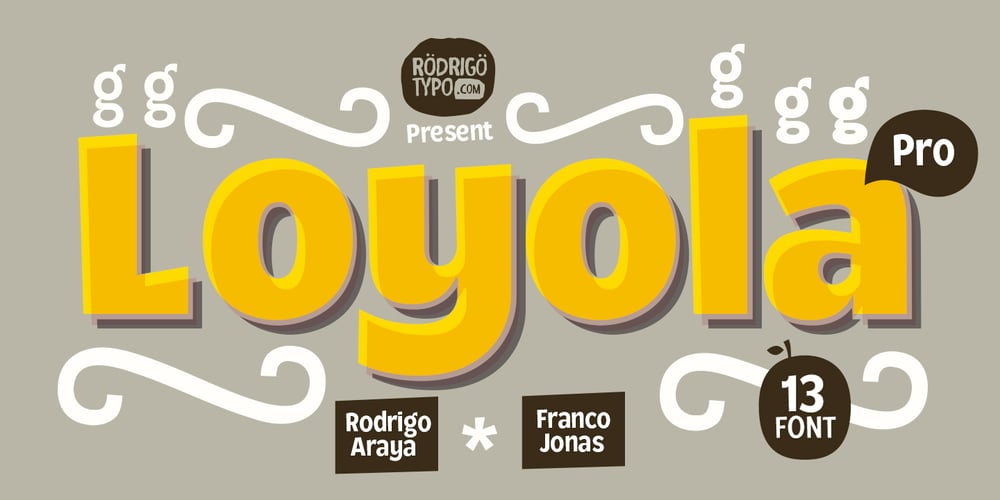
Loyola Pro Font Family was designed by Rodrigo Araya Salas, Franco Jonas and published by RodrigoTypo. Loyola Pro contains 13 styles and family package options. It is a redesign of “Loyola”. This family contains Light, Regular, Bold, ExtraBold, Black, also a set of shadows and dingbats, special for short titles and children.